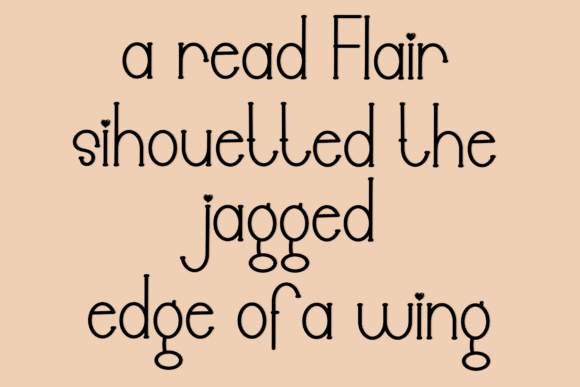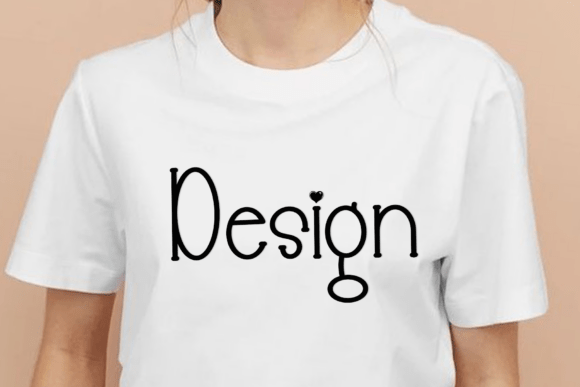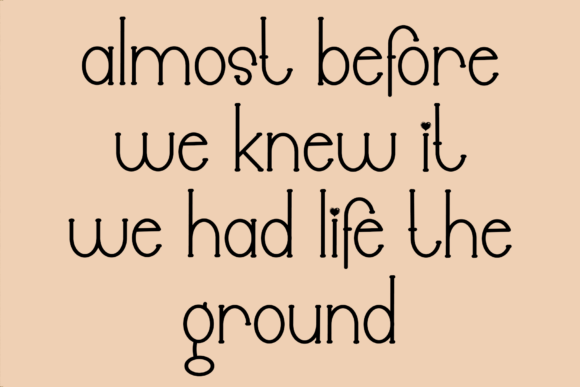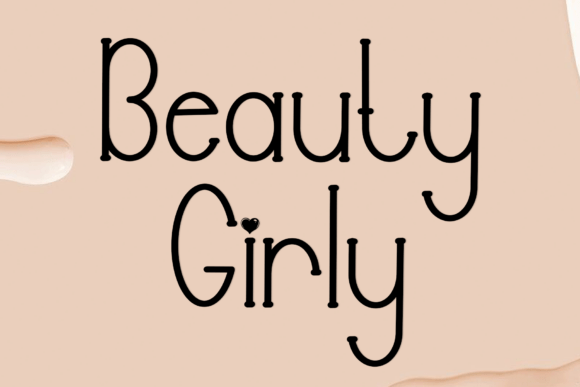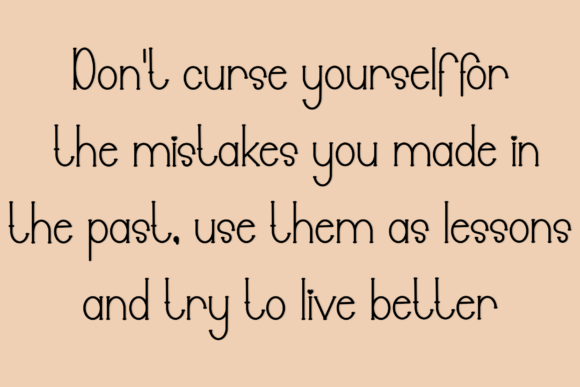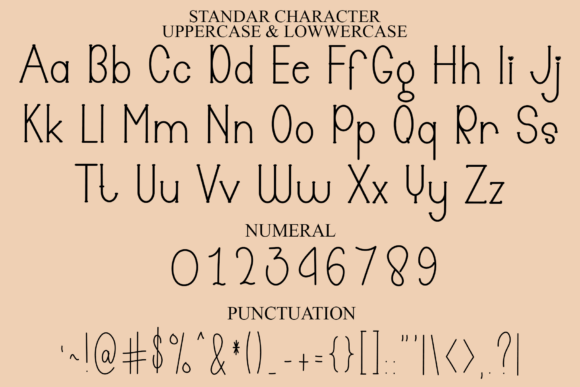
Introducing Designer Desember Font: The Perfect Blend of Warmth and Creativity
Are you on the lookout for a font that can add a personal touch to your designs? Look no further than the Designer Desember Font. This casual and creative font is designed to exude warmth and friendliness, making it perfect for a wide range of design projects. From personal projects to invitations and social media graphics, Designer Desember Font is the ideal choice for designers and crafters who want to add a unique and playful touch to their work.
The Characteristics of Designer Desember Font
One of the standout features of Designer Desember Font is its round, playful strokes. These strokes create a relaxed and approachable feel that is sure to capture the attention of your audience. The font’s charming, hand-drawn aesthetic adds a fun and unique touch to any design, making it perfect for designers who want to create something truly special.
Perfect for Personal Projects and Designs
Designer Desember Font is perfect for designers and crafters who want to add a personal touch to their work. Whether you’re creating invitations, social media graphics, or personal projects, this font is sure to bring a smile to the face of your audience. The font’s casual and creative vibe makes it ideal for designers who want to create something that feels approachable and friendly.
For example, if you’re creating a set of invitations for a birthday party or a wedding, Designer Desember Font is a great choice. The font’s playful strokes and charming aesthetic will add a fun and unique touch to your invitations, making them truly special.
Key Features of Designer Desember Font
• Casual and creative font with a warm and friendly feel
• Round, playful strokes create a relaxed and approachable vibe
• Charming, hand-drawn aesthetic adds a fun and unique touch to any design
• Perfect for personal projects, invitations, and social media graphics
Tips for Using Designer Desember Font
In conclusion, Designer Desember Font is a versatile and creative font that is perfect for designers and crafters who want to add a personal touch to their work. With its round, playful strokes and charming, hand-drawn aesthetic, this font is sure to bring a smile to the face of your audience. Whether you’re creating personal projects, invitations, or social media graphics, Designer Desember Font is the ideal choice.